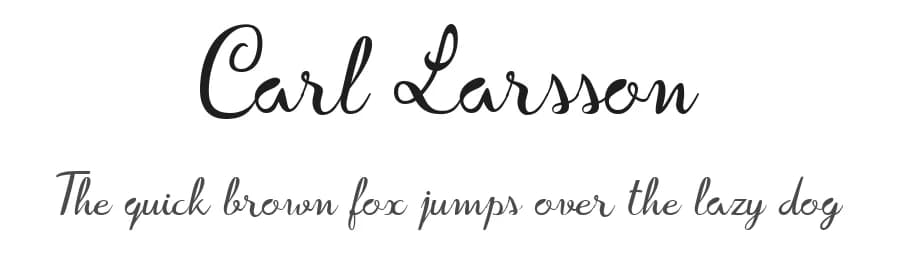
About Carl Larsson Font
This is an imitation of Carl Larsson's handwriting.
Carl Larsson (Stockholm 1853-Sundborn 1919) is one of the most famous Swedish painter, drawer, illustrator.
Not many examples of his handwriting are present on the Web. Plus, his writing changes whith age. And some corrections were necessary for legability. That's why I call it 'imitation'.
Diacritics, ligatures.
Ceci est une imitation de l'écriture de Carl Larsson (Stockholm 1853 - Sundborn 1919), l'un des plus célèbres peintres, dessinateurs et illustrateurs suédois.
Peu d'exemples de son écriture sur le Web, une écriture changeante avec l'âge et quelques adaptations pour la lisibilité: d'où le terme "imitation".
Caractères accentués et ligatures.
Carl Larsson Font